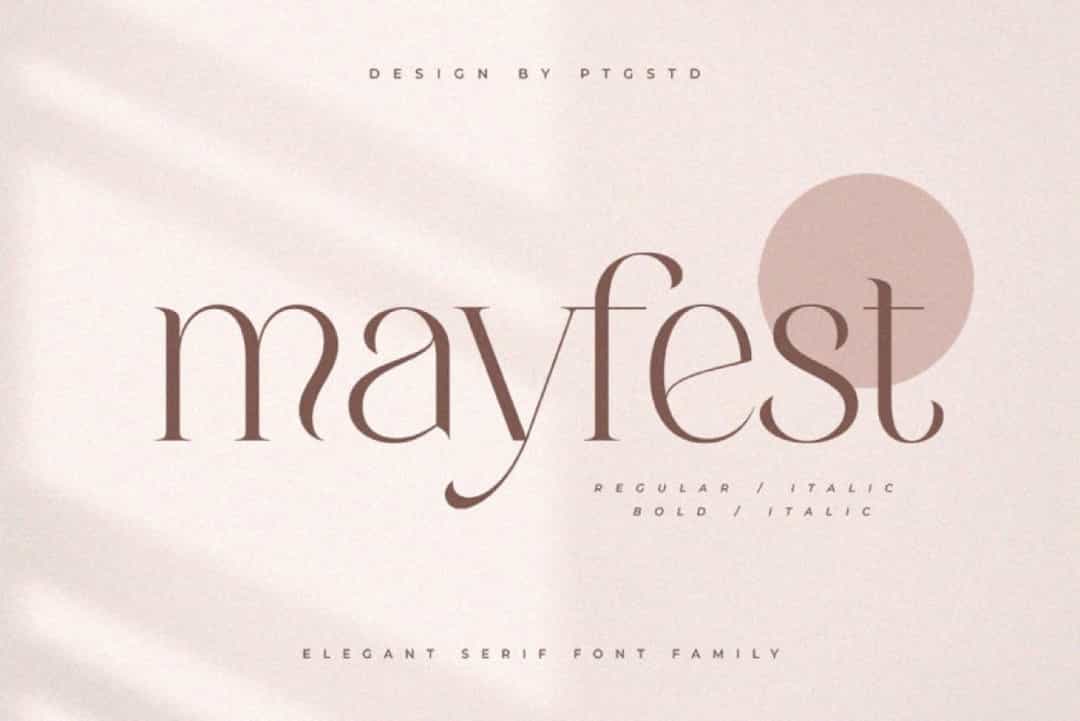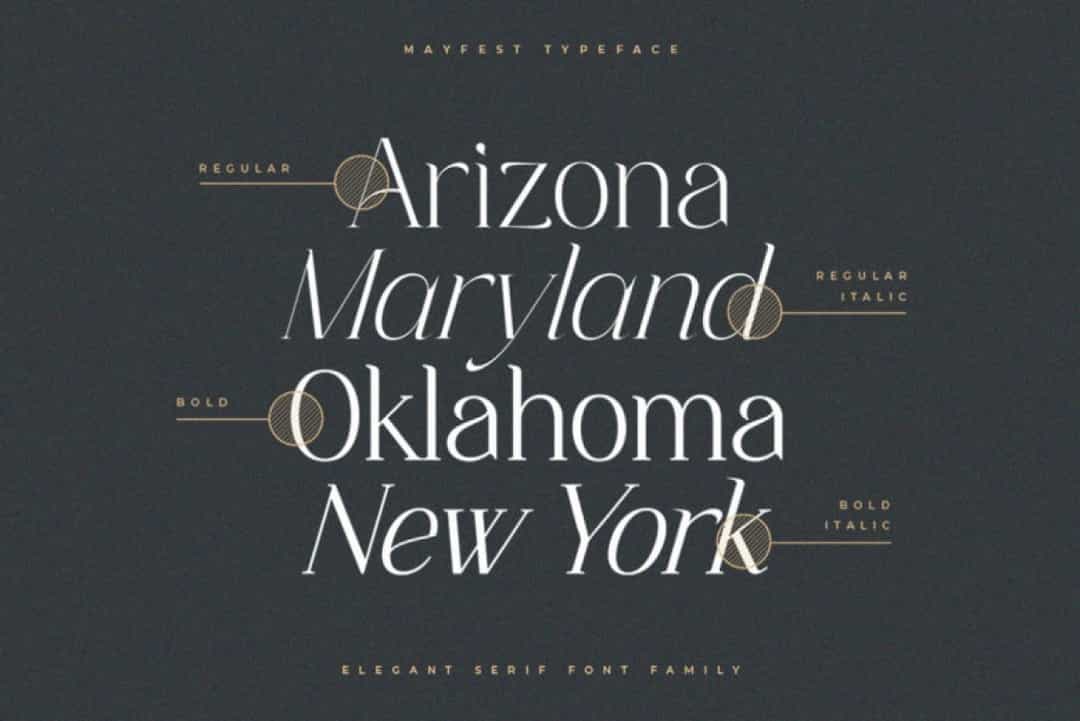
Discover Mayfest Font, part of the Serif collection—a versatile and unique font perfect for adding a personal touch to your projects. Download it for free and enjoy crafting designs with style, from invitations to social media posts. This font is available exclusively for personal use, giving you the freedom to create without limits. Unlock your creativity with Mayfest Font today!
Mayfest Serif is a luxurious display serif inspired by refined character. Easily adaptable, this font makes a striking statement about creativity in projects of all kinds! Utilize it in your designs for creative projects and see them come to life!